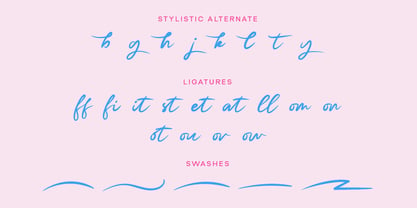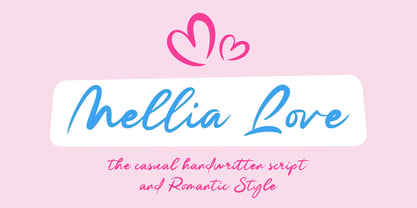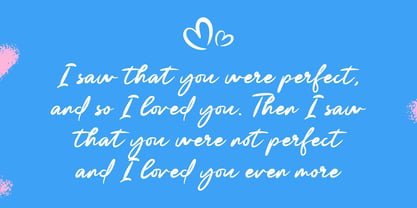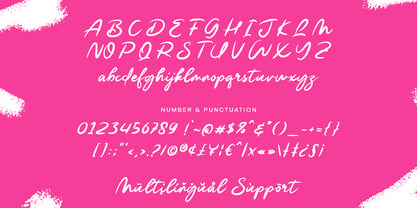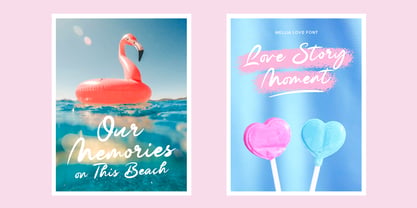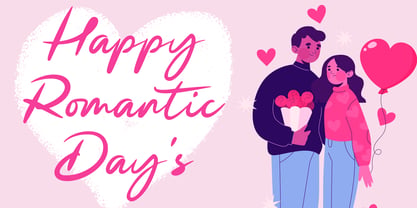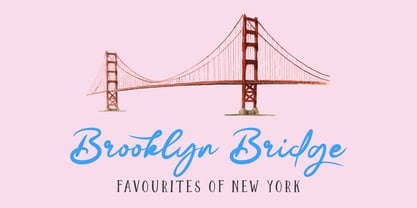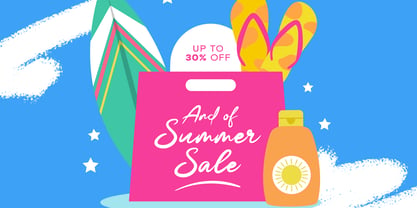
Mellia Love
by Gatype
The Mellia Love Font Family was designed by khaidir and published by Gatype. Mellia Love contains 1 styles. More about this family
The perfect choice for modern handwritten lettering in the 2025 Wedding Season.
The Mellia Love font will look beautiful on handwritten wedding invitations, menus, modern wall art, instagram posts, quotes, and branding. Mellia Love includes a full set of Uppercase and Lowercase Basic Characters, Numbers, Punctuation, alternate sets and ligatures.